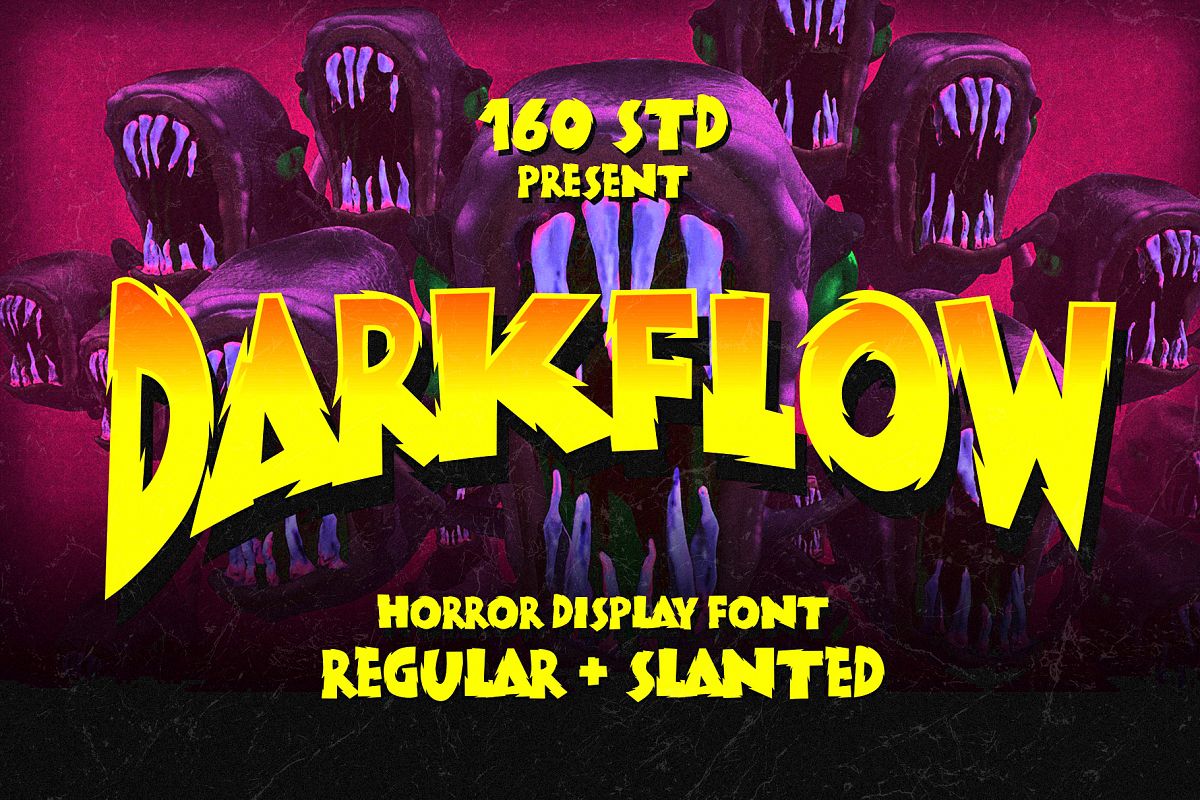
Darkflow
Darkflow Slanted
Darkflow
Bring the terror with Darkflow!!!
perfect for halloween poster, horror movie tittle, horror book cover etc.
comes in 2 variation regular and slanted